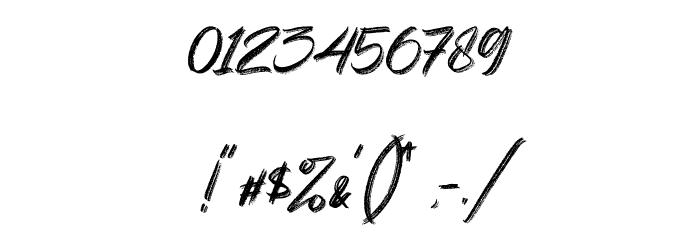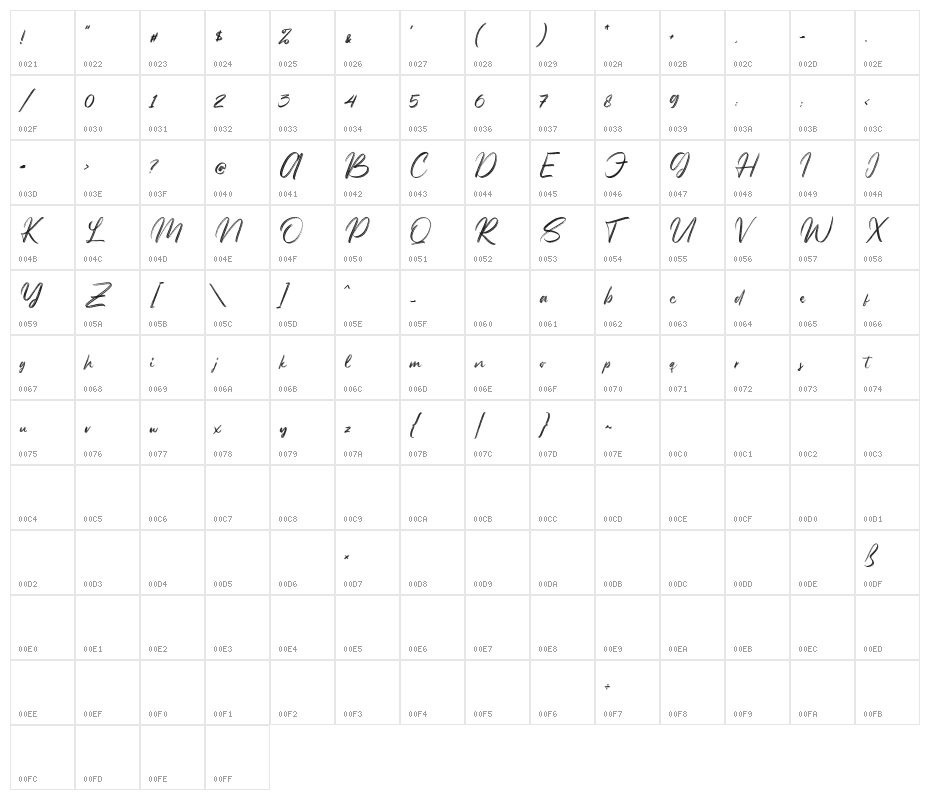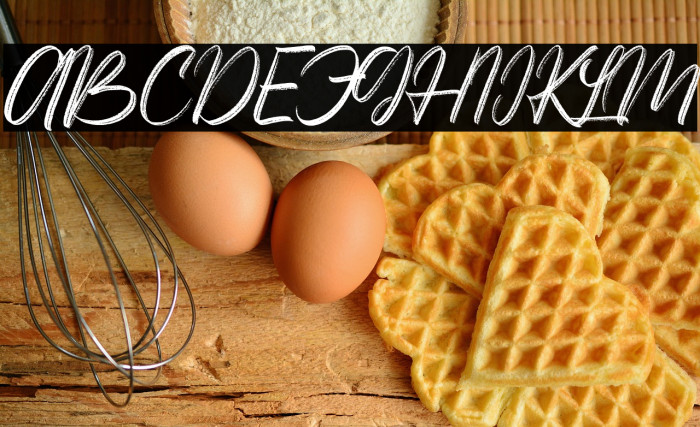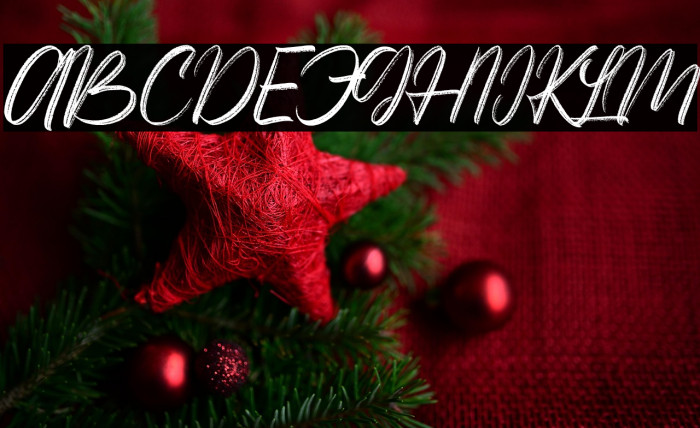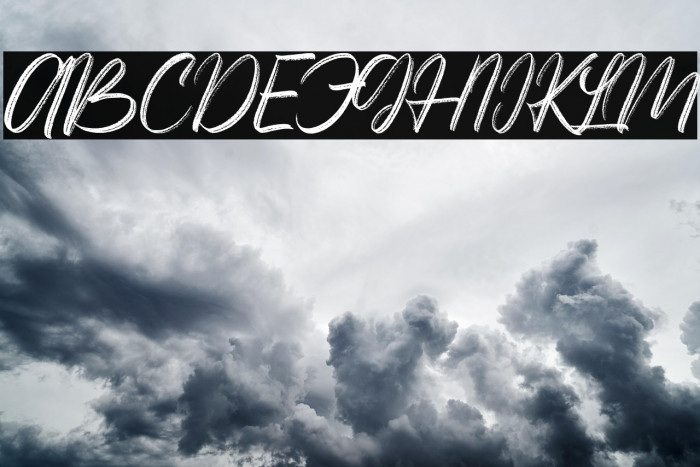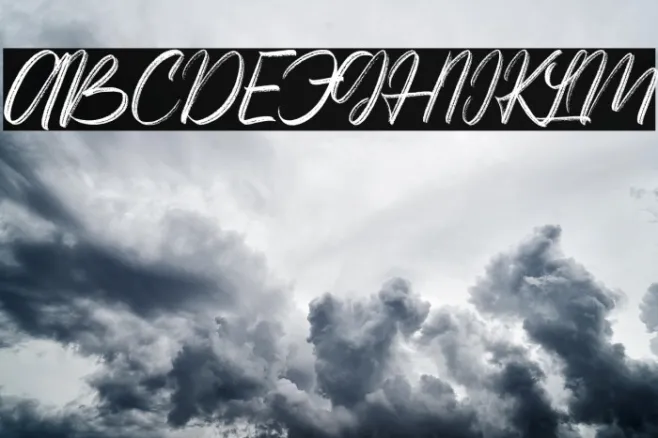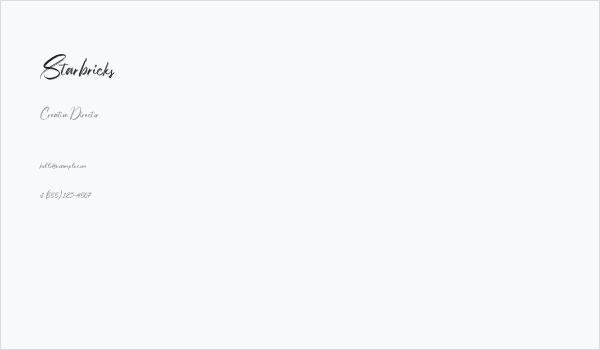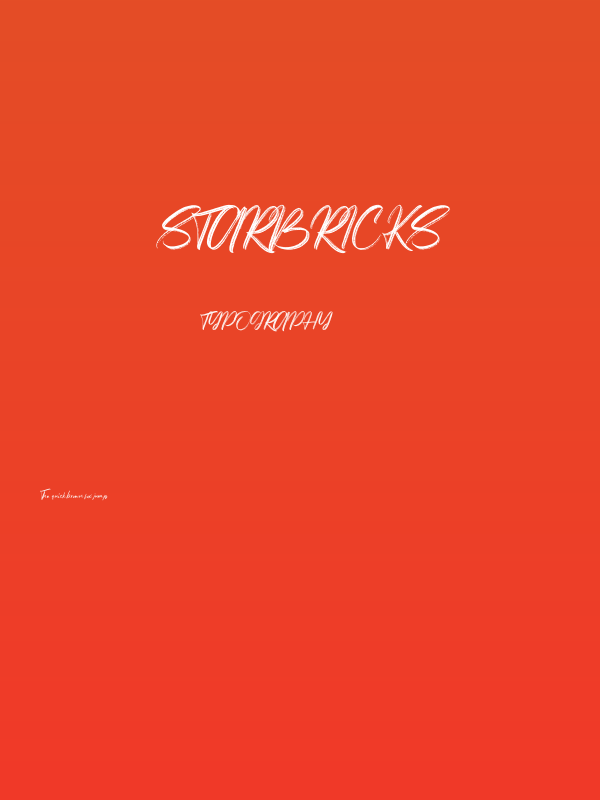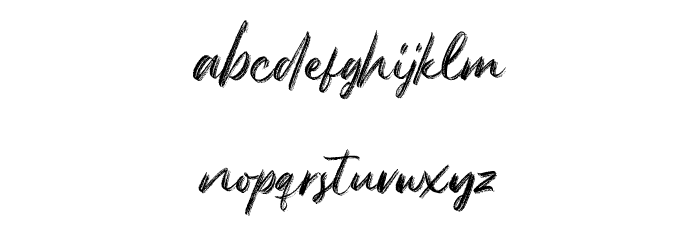
Starbricks Font
Starbricks Description
This font exhibits a dynamic and energetic style, characterized by its fluid, cursive script. The letters are interconnected, giving a sense of continuity and flow, reminiscent of handwriting with a brush pen. The strokes are varied in thickness, creating a lively and expressive appearance. The uppercase letters are bold and prominent, while the lowercase letters maintain a consistent style, enhancing readability. Numbers and special characters follow the same expressive design, making them suitable for creative and artistic projects.
| Proposed Projects | Ideal for branding, invitations, greeting cards, and artistic projects that require a personal touch. |